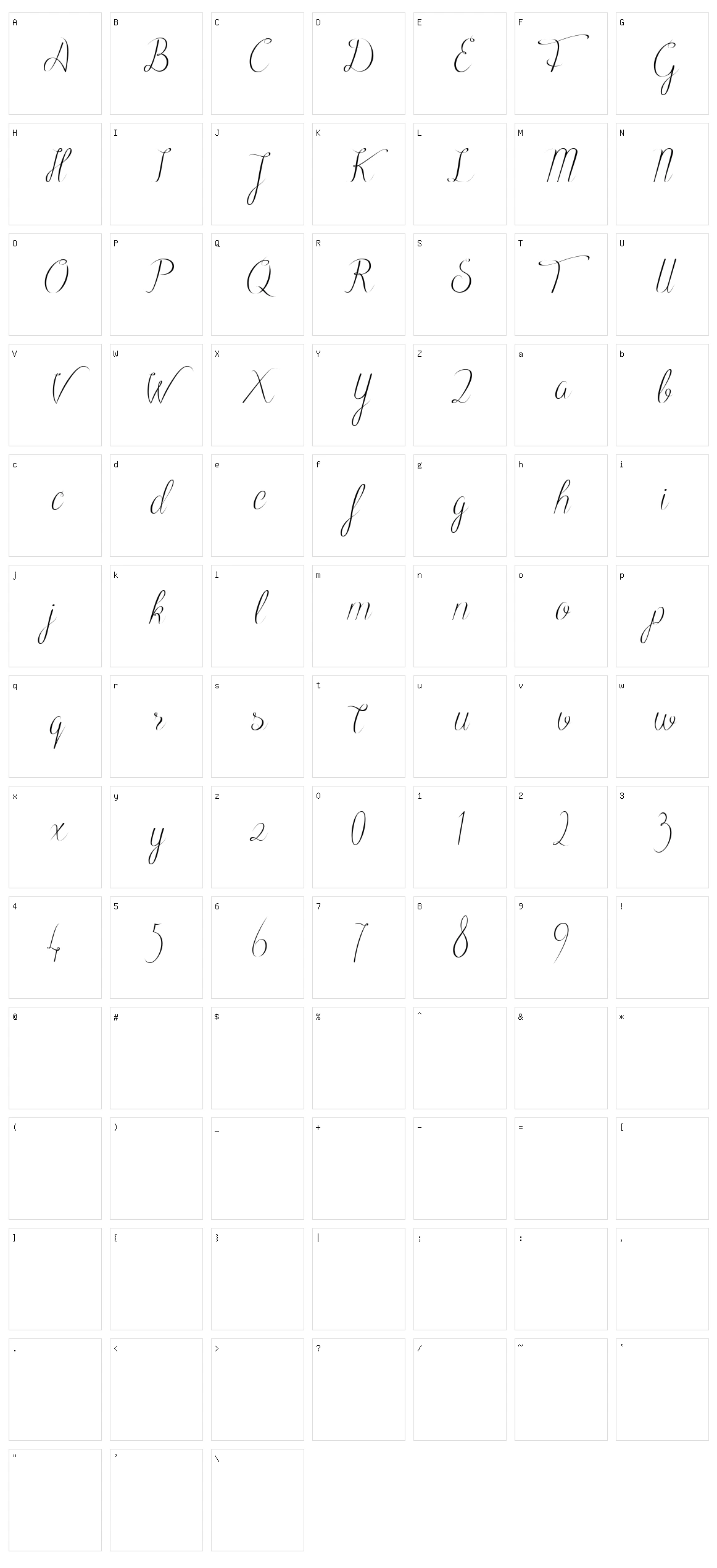
ÿþB L A C K O L I V E S i s a s c r i p t c a l l i g r a p h y f o n t e x p e r i m e n t .
P l e a s e n o t e t h a t t h e s e a r e s t y l i z e d f o n t s a n d m a y n o t l o o k g o o d i n e v e r y c o n t e x t , w o r d s o r s i z e s . A l l f e e d b a c k a n d h e l p w o u l d b e g r e a t l y a p p r e c i a t e d f o r f u t u r e d e v e l o p m e n t o n t h i s f o n t .